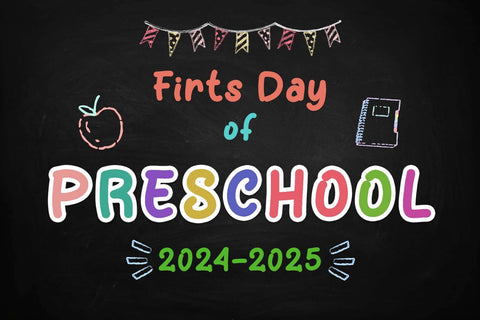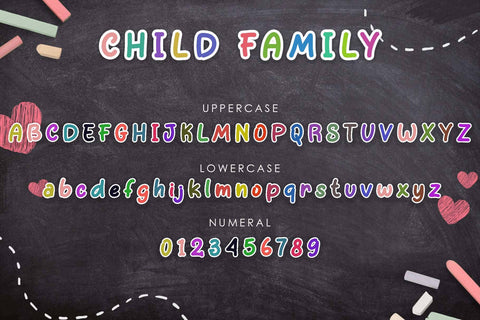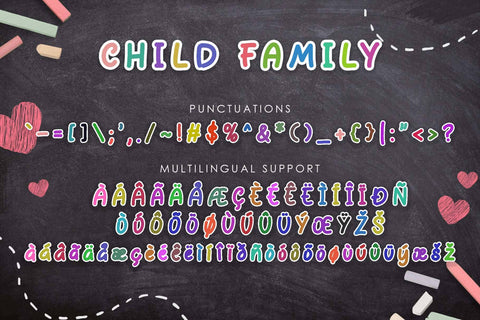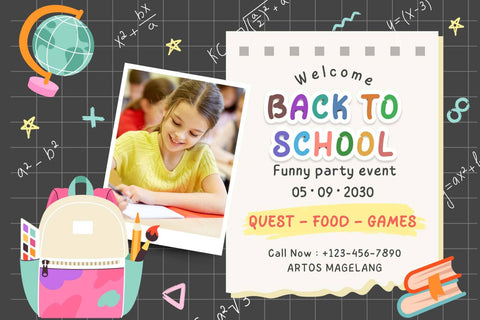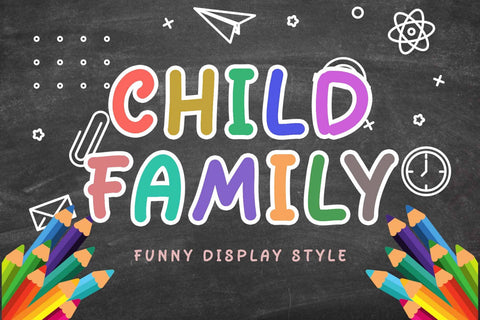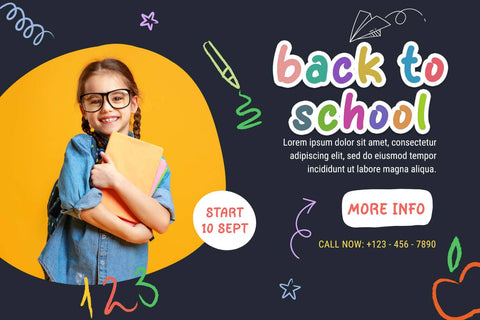
Child Family
"Child Family" is a unique cute display font. This font is equipped with uppercase, lowercase, numerals, punctuations and multilingual support. Very suitable for back to school, teacher, father's day, Christmas, 4th of July, summer, logos, stickers, banners, posters, prints, branding, mugs and others.